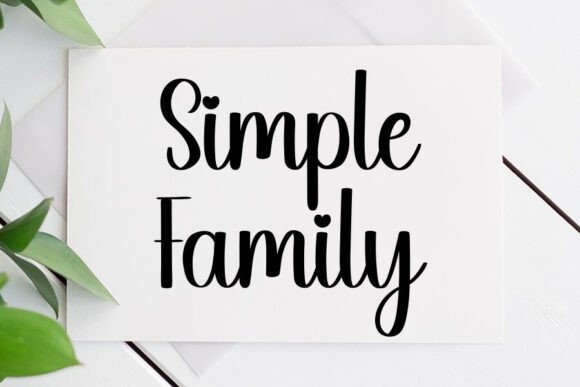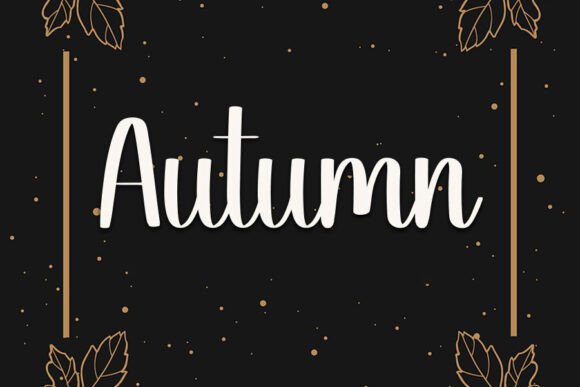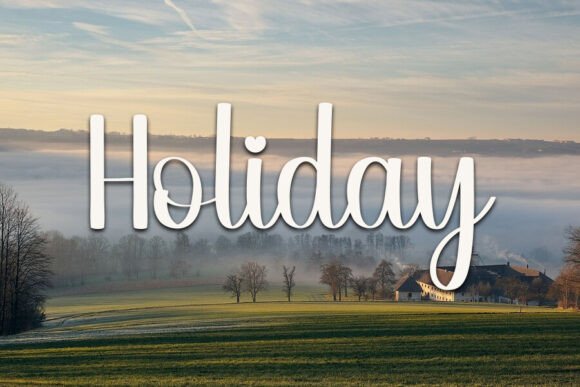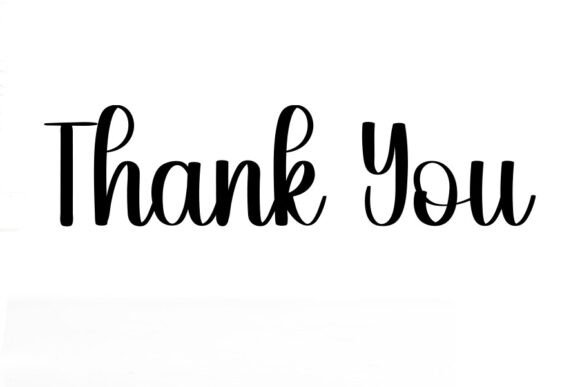
Introduction to Hitter Font
Hitter is a simple handwritten font.
This versatile font has a wide spectrum of applications ranging from greeting cards to headlines and is guaranteed to add a simple and natural feel to your next project .